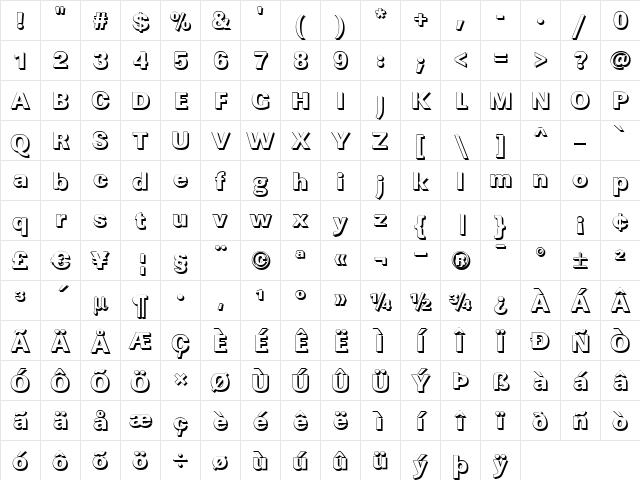
LinearSh-Heavy Regular
LinearSh-Heavy Family
Complete LinearSh-Heavy Regular glyph index. Displaying only characters natively supported by LinearSh-Heavy Regular font.
Design Context for LinearSh-Heavy
LinearSh-Heavy is a composed and adaptable typeface that performs quietly and consistently across a wide range of design contexts.